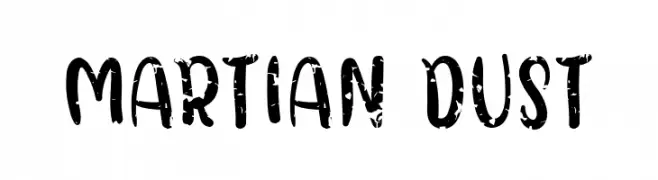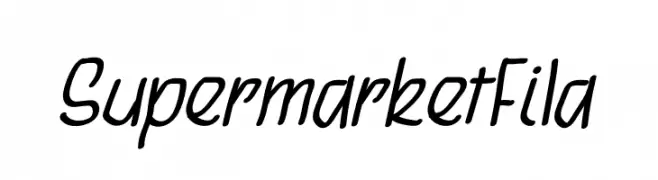
A hollow, inverse font with a futuristic, geometric style.
A futuristic, geometric font with angular shapes and consistent line thickness.
A bold, distressed font with a vintage typewriter aesthetic.
A rugged, vintage-style font with distressed, bold letterforms.
A bold, textured font with a hand-drawn, artistic style.
A bold, decorative font with a unique cross-hatched pattern.
A bold, striped font with a dynamic and energetic style.
A distressed, grungy font with a vintage, textured appearance.
A futuristic, segmented font with a mechanical and geometric design.
A futuristic, geometric font with cut-out sections and a modern aesthetic.
A bold, futuristic font with geometric and structured letterforms.
A bold, italicized font with a futuristic and dynamic design.
A futuristic, geometric italic font with sharp lines and dynamic style.
A futuristic, hollow font with a mechanical and geometric design.
A futuristic, hollow, geometric font with sharp angles and smooth curves.
A futuristic, geometric font with clean lines and unique cut-out shapes.
A dynamic brush script font with expressive, fluid strokes and a hand-painted aesthetic.
A bold, geometric font with a modern, industrial style.
A jagged, irregular font with a chaotic and energetic style.
A bold, brushstroke-style font with dynamic and artistic flair.
A bold, playful handwritten font with rounded, irregular letterforms.
A playful handwritten font with a whimsical and creative style.
A playful, bold handwritten font with a casual and dynamic style.
A playful, rounded font with bold, smooth curves and a friendly vibe.
An ultra-thin, elongated font with a playful and modern aesthetic.
A playful, hand-drawn font with a whimsical and casual style.
A playful, informal handwritten font with a whimsical and friendly style.
A playful, handwritten font with tall, narrow letters and thin strokes.
A playful, handwritten font with rounded edges and a friendly appearance.
A playful, handwritten-style font with rounded edges and consistent stroke width.